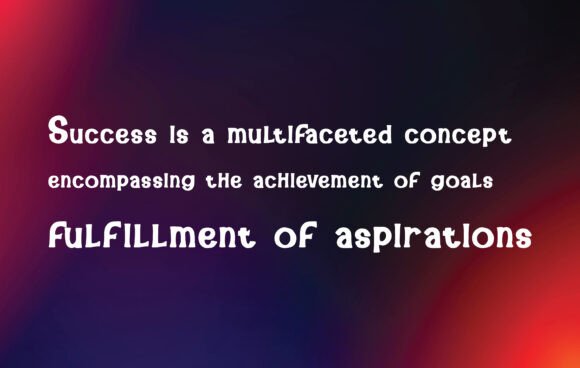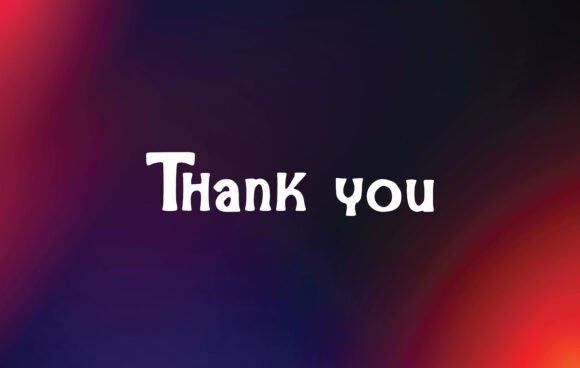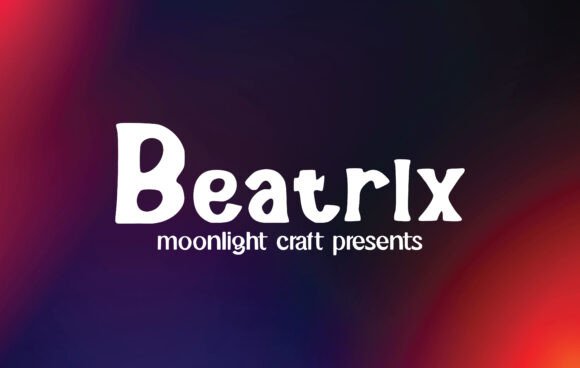
Introducing Beatrix Font: The Ultimate Creative Companion
Are you tired of using the same old fonts that lack personality and style? Look no further than Beatrix Font, the versatile and eye-catching typeface that’s about to become your go-to favorite. Designed to bring your creative ideas to life, Beatrix Font is the perfect choice for designers, crafters, and anyone looking to add a touch of sophistication and whimsy to their projects.
What Makes Beatrix Font So Special?
Beatrix Font is made to be a versatile and reliable choice for a wide range of design projects. Whether you’re working on magazine covers, t-shirts, social media posts, branding, wedding invitations, or greeting cards, this font fits right in with style and personality. Its clear and easy-to-read design makes it perfect for both titles and body text, ensuring that your message is conveyed with clarity and impact.
Key Features of Beatrix Font
- Versatility: Beatrix Font is designed to work seamlessly across various design projects, from print to digital media.
- Eye-catching: With its unique and stylish design, Beatrix Font is sure to grab attention and leave a lasting impression.
- Clear and Easy to Read: Whether you’re using it for titles or body text, Beatrix Font is optimized for maximum readability.
- High-quality: Beatrix Font is crafted with precision and attention to detail, ensuring a professional finish every time.
Beatrix Font is an ideal choice for designers and crafters who want to add a touch of personality and style to their work. Whether you’re creating:
- Magazine Covers: Use Beatrix Font to create eye-catching headlines and titles that grab attention.
- T-shirts and Apparel: Add a stylish and modern touch to your designs with Beatrix Font.
- Social Media Posts: Stand out on social media with Beatrix Font’s unique and engaging design.
- Branding and Packaging: Use Beatrix Font to create a cohesive and professional brand identity.
- Wedding Invitations and Greeting Cards: Add a touch of elegance and sophistication to your special occasion designs.
Why Choose Beatrix Font?
With so many fonts to choose from, why should you choose Beatrix Font? Here are just a few reasons:
- Unique Design: Beatrix Font offers a fresh and unique design that’s sure to set you apart from the crowd.
- Time-saving: With Beatrix Font, you can create professional-looking designs in no time, saving you time and effort.
Get Creative with Beatrix Font
Beatrix Font is more than just a font – it’s a creative companion that’s designed to help you bring your ideas to life. With its versatility, eye-catching design, and ease of use, Beatrix Font is the perfect choice for designers, crafters, and anyone looking to add a touch of style and personality to their projects. So why wait? Download Beatrix Font today and start creating with confidence!